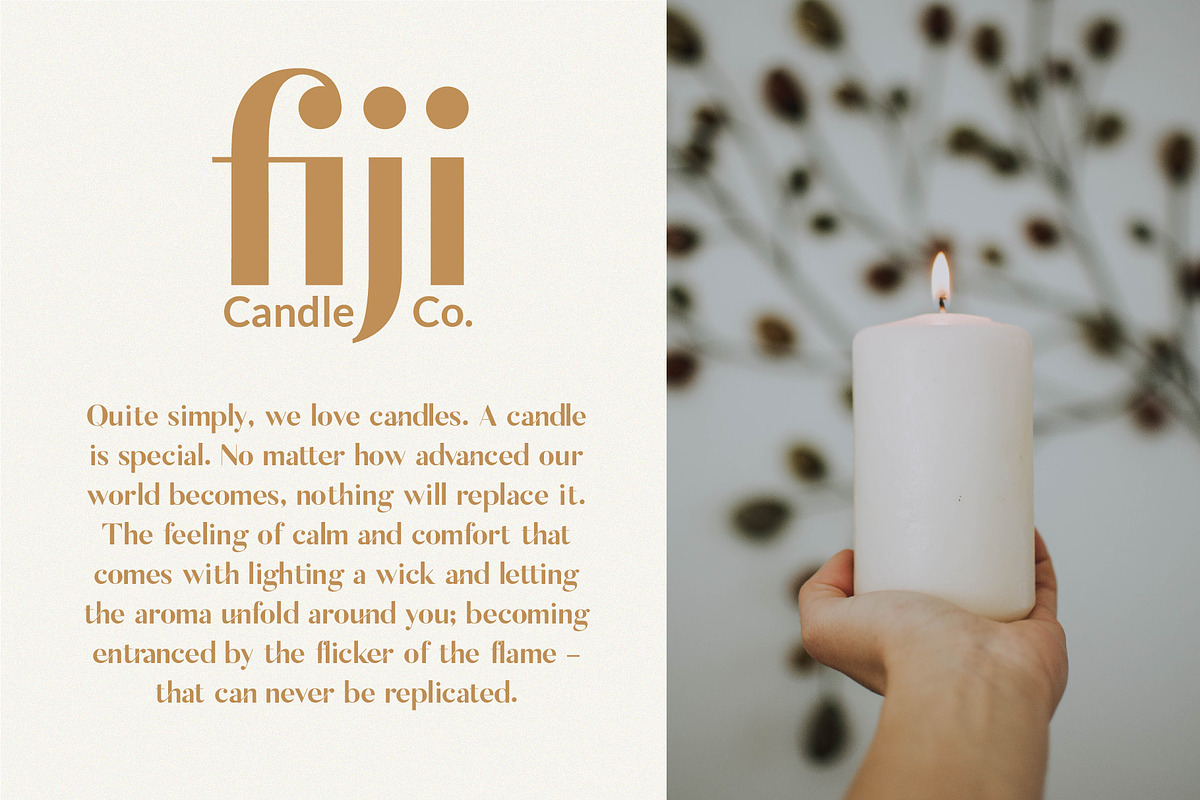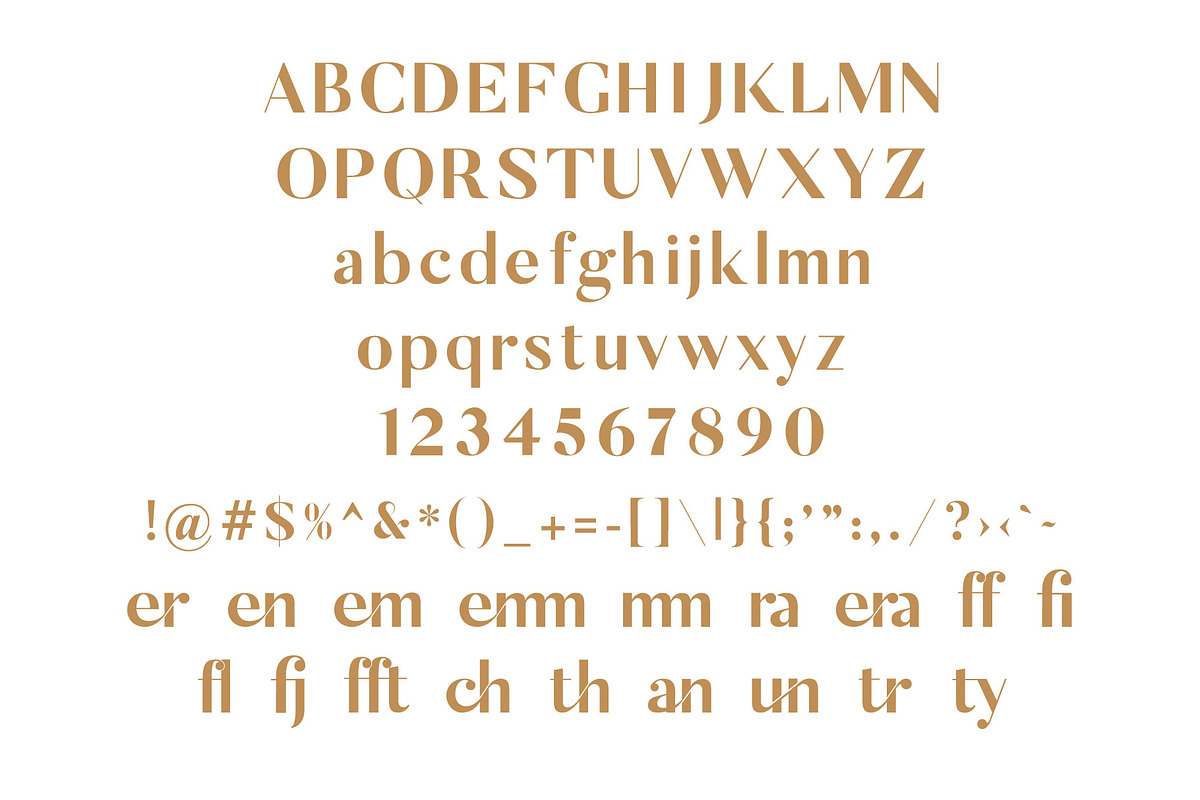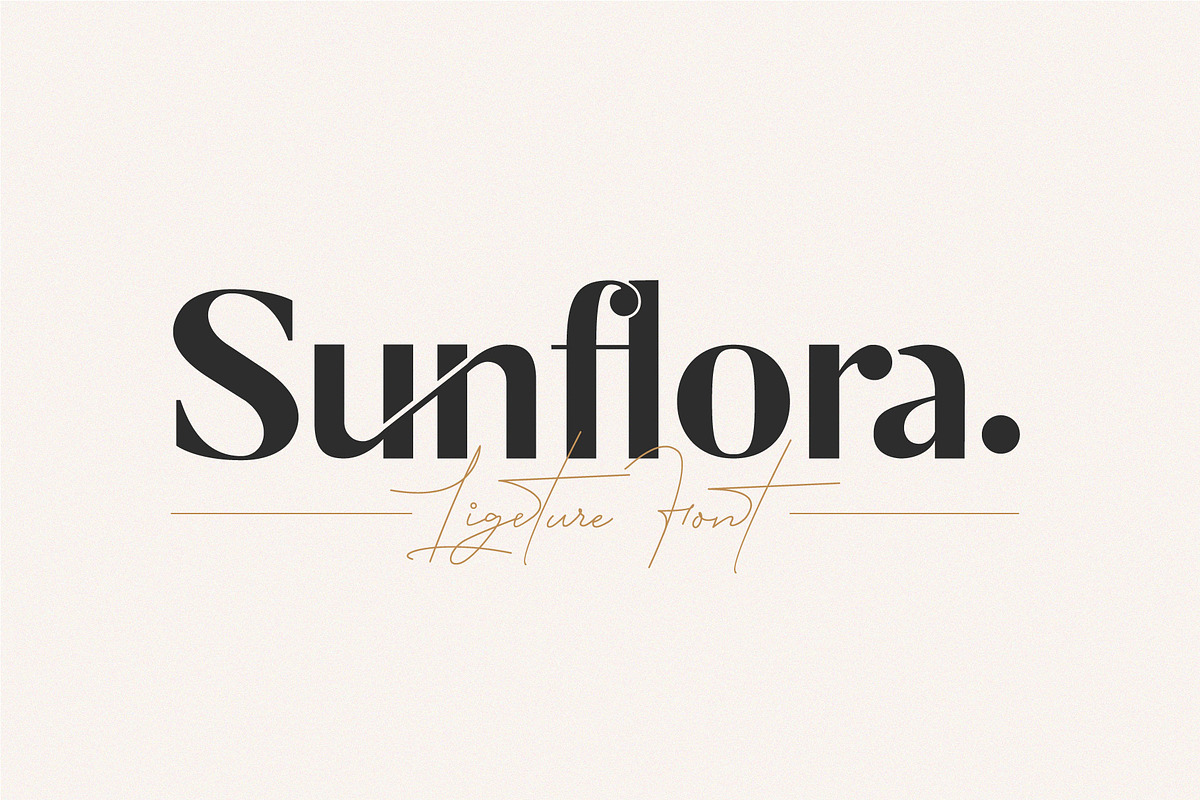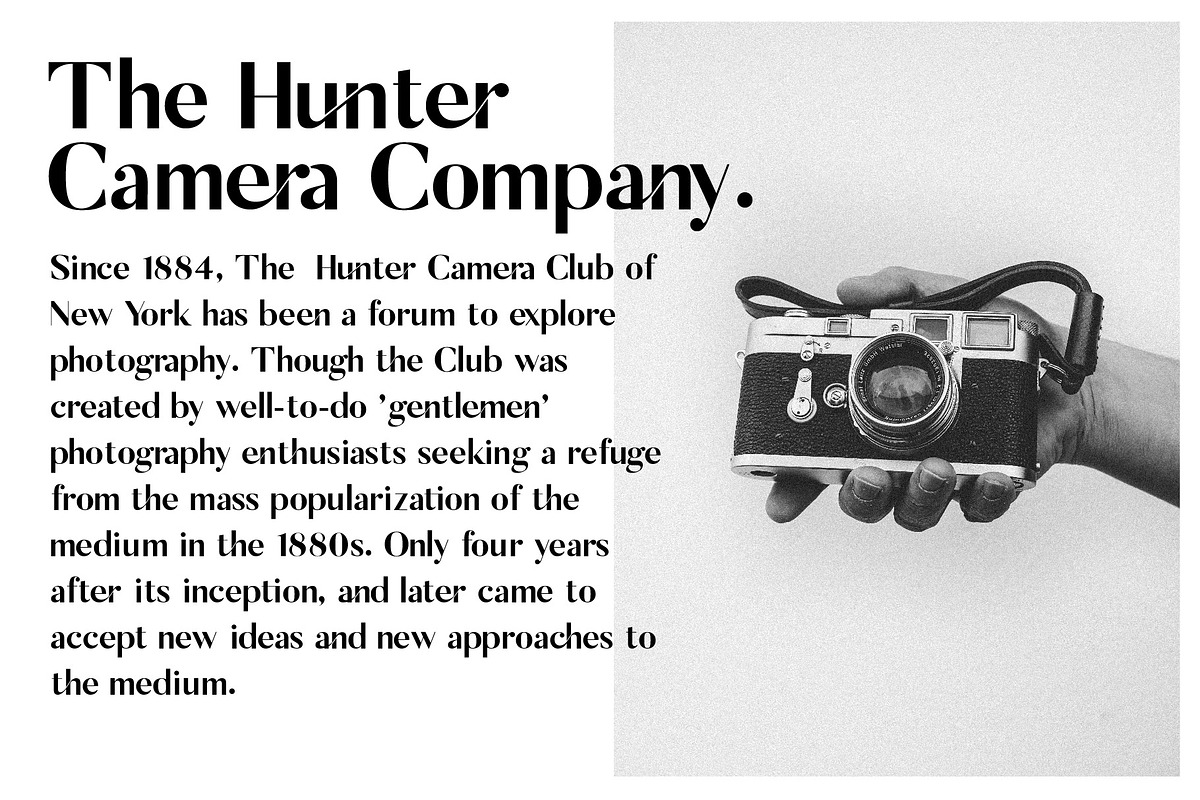
Sunflora - Unique Ligature Font
Sunflora is an elegant, unique font that uses ligatures to smoothly link letters. Perfect for adding a unique twist to word-mark logos, monograms or pull quotes. Sunflora has 20 ligatures as well as numbers and punctuation making it super versatile. Ligatures are able to be turned off if needed for body copy. Any Questions? Just ask!